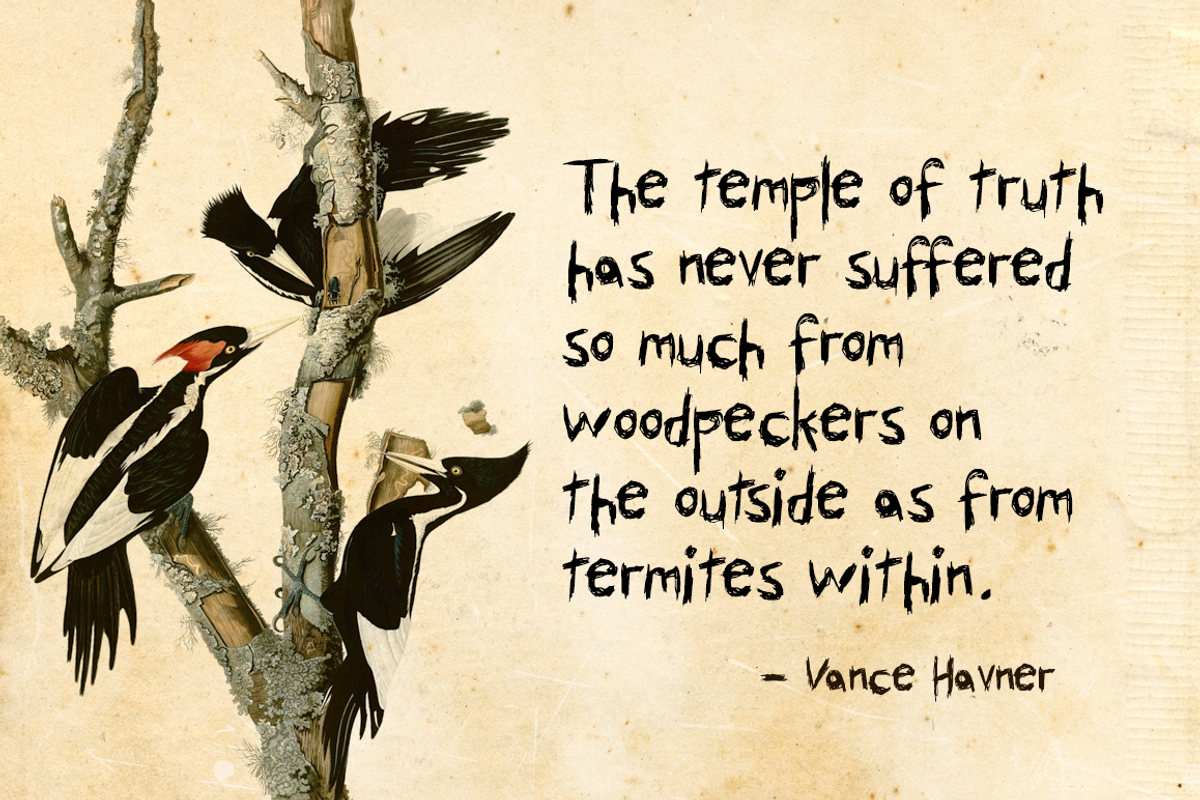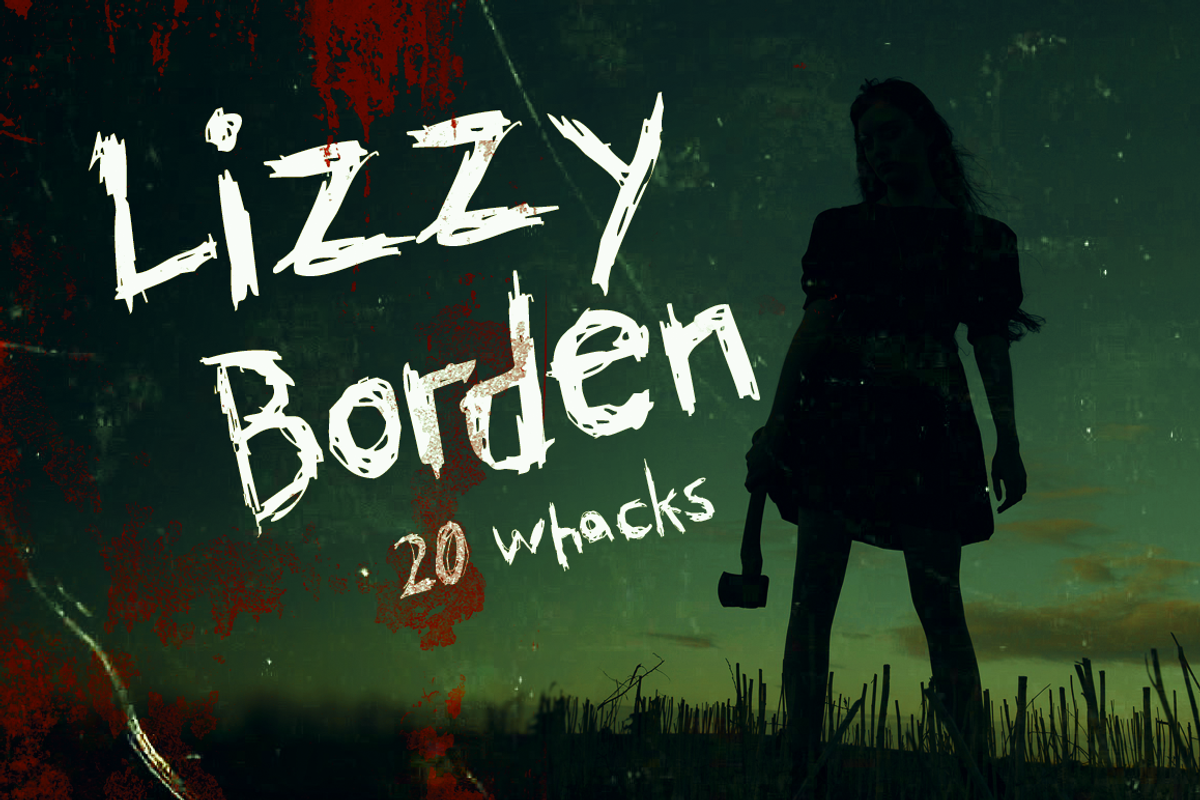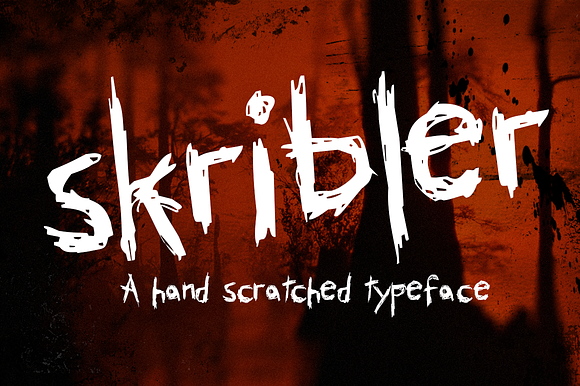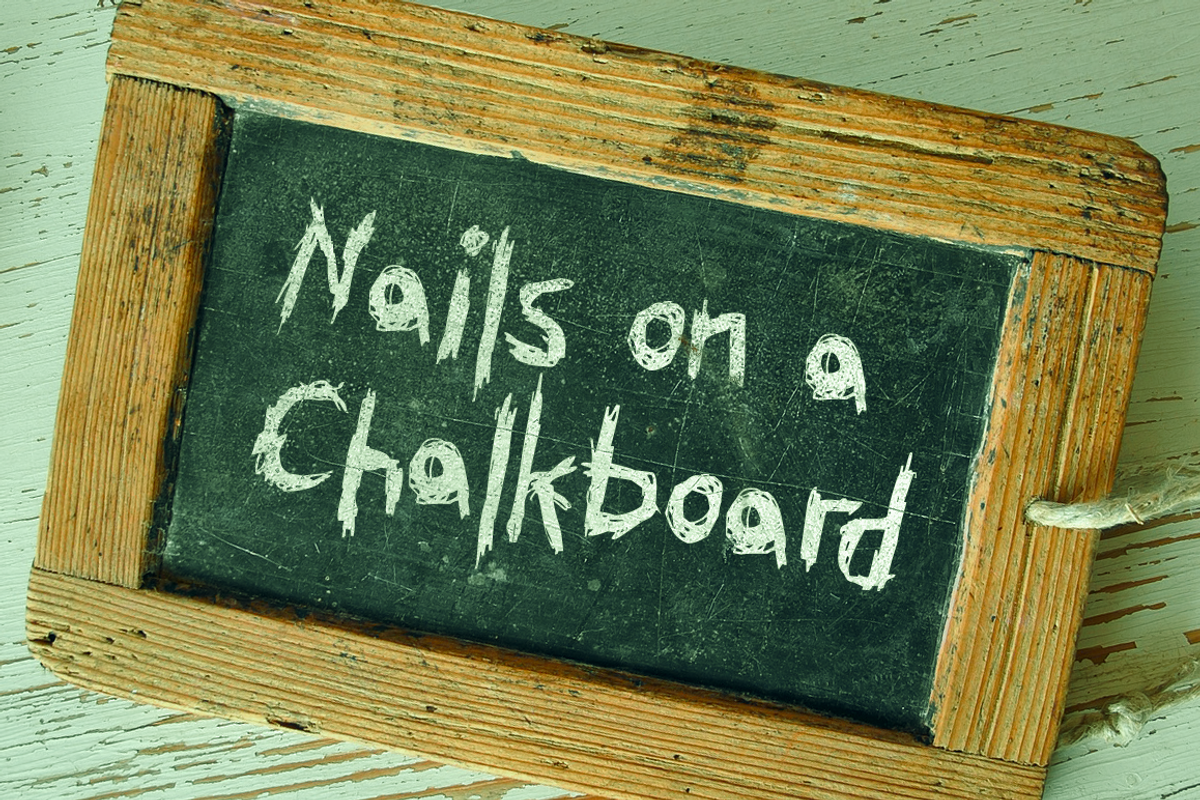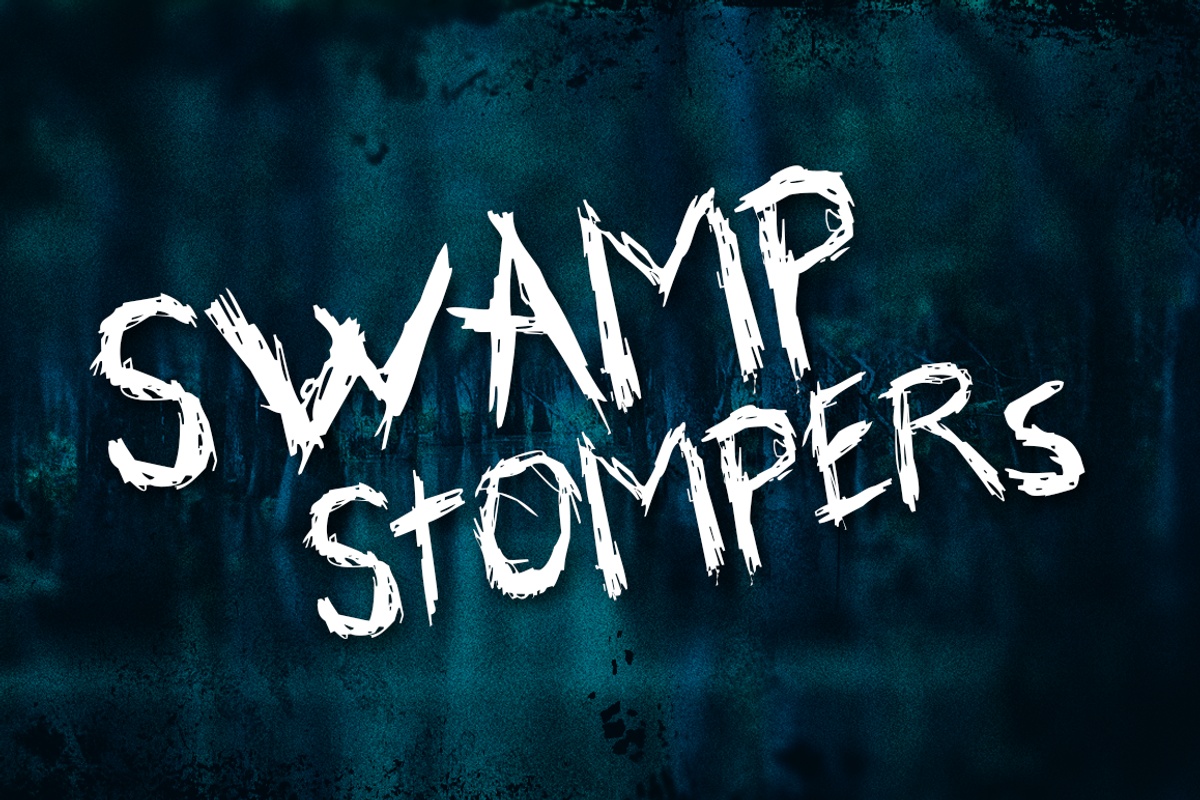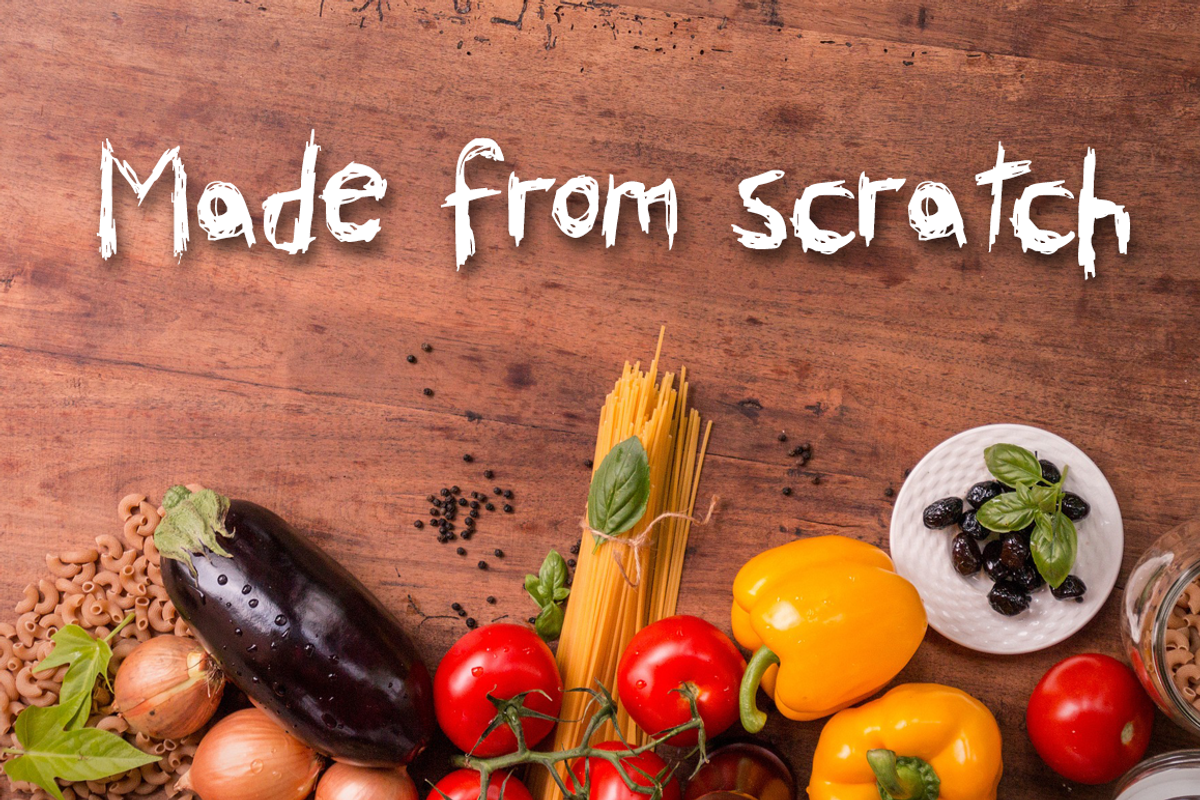
Skribler
Skribler This hand scratched typeface can be used in a variety of ways. It can be dark and scary, fun and whimsical or low-fi and grungy. It includes the full character set with numbers, punctuation, accents, etc. It's a real swamp creature.